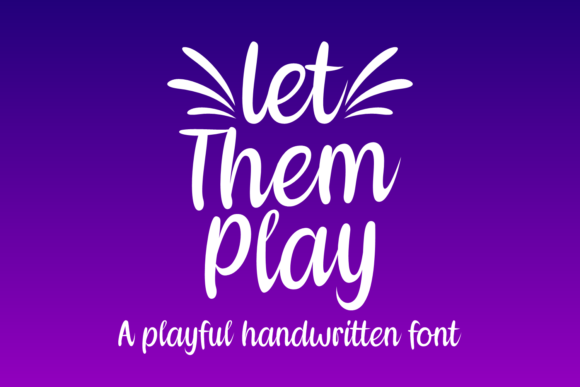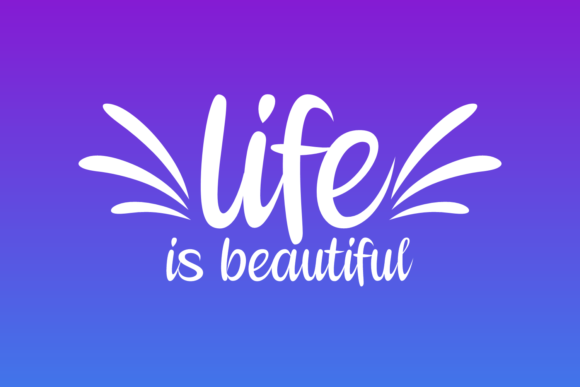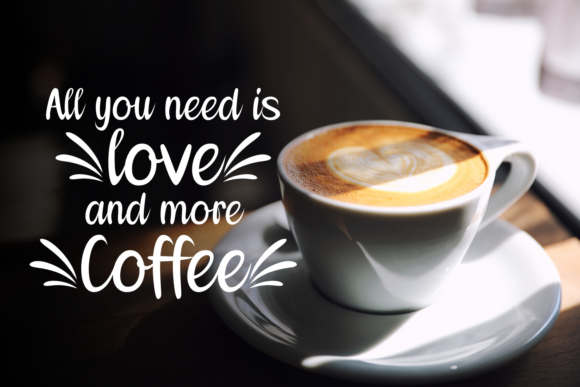
Let Them Play Font
About Let Them Play Font
Let Them Play is a delightful and graceful script font that exudes a playful and charming vibe. With its unique blend of elegance and approachability, this font is a perfect choice for a variety of design projects. Its down-to-earth and readable style ensures that your text remains easily legible while adding a touch of whimsy to your designs.
The playful nature of Let Them Play makes it ideal for designs that aim to capture attention and create a sense of joy and liveliness. Whether you’re working on children’s book illustrations, playful branding, party invitations, or any other project that calls for a touch of fun, Let Them Play will bring a delightful energy to your designs.
Despite its playful nature, Let Them Play remains gracefully legible, making it versatile for a wide range of applications. Its characters are carefully crafted to ensure readability while still maintaining a whimsical and unique appearance. This balance makes it suitable for various design projects, including logos, packaging, posters, social media graphics, and more.
The charm of Let Them Play lies in its ability to connect with the audience on a personal level. Its friendly and approachable style invites engagement and conveys a sense of warmth and friendliness. Whether you’re aiming to create a friendly brand image, capture the essence of a joyful event, or simply add a touch of playfulness to your designs, Let Them Play will do it with grace.
By confidently incorporating Let Them Play into your projects, you’ll infuse them with a sense of joy and whimsy. Its versatile nature and readability ensure that your message will be effectively communicated while adding a delightful visual appeal. Let this playful and graceful font inspire your creativity and elevate your designs to new levels of charm and engagement.